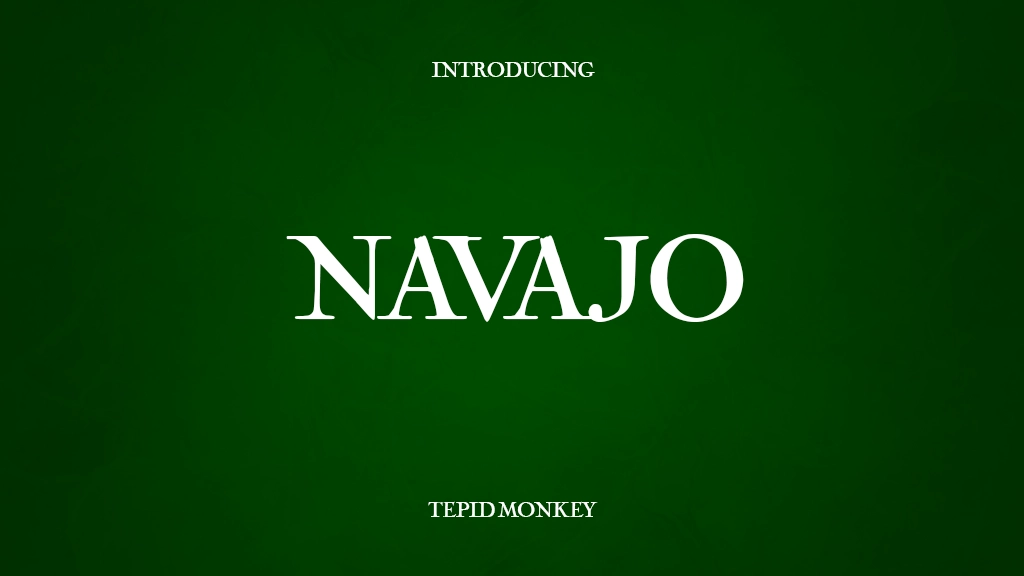
The Navajo font is a good choice for any creative project that requires a fun and playful look. It is available in the Regular subfamily, which means that it has a normal weight and width.